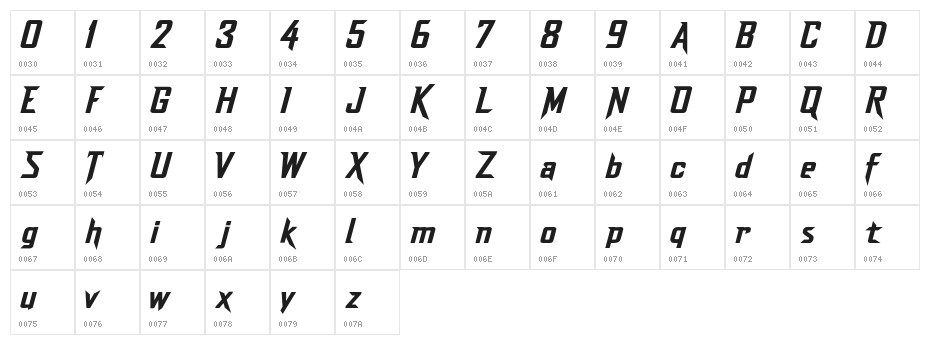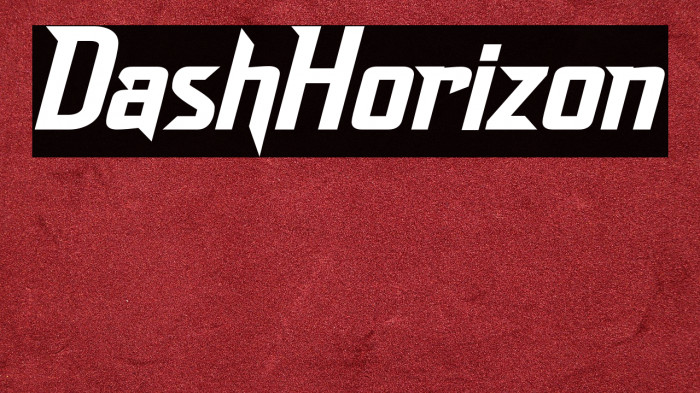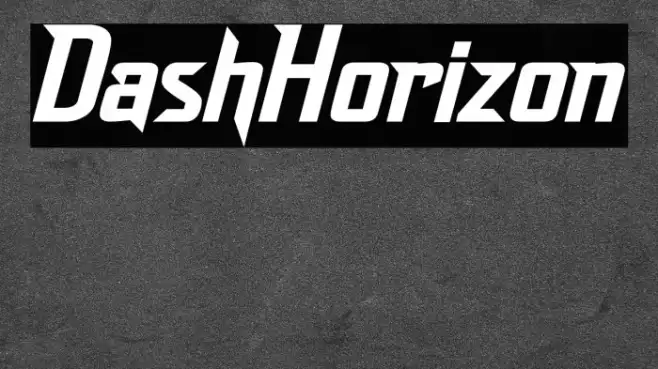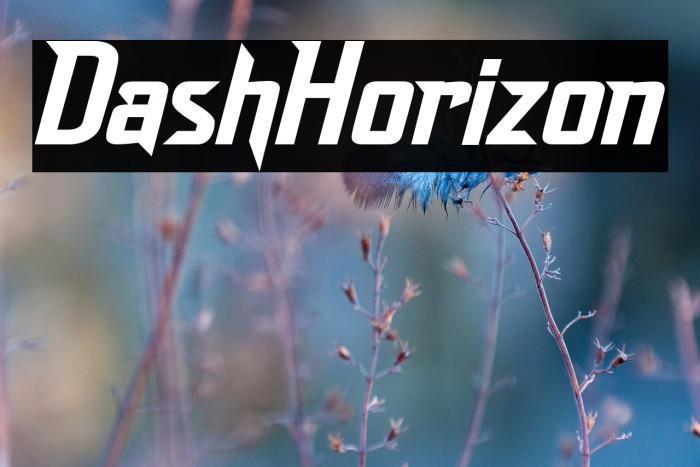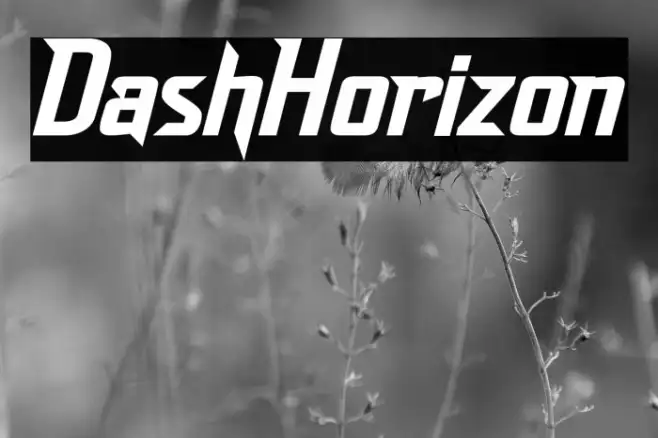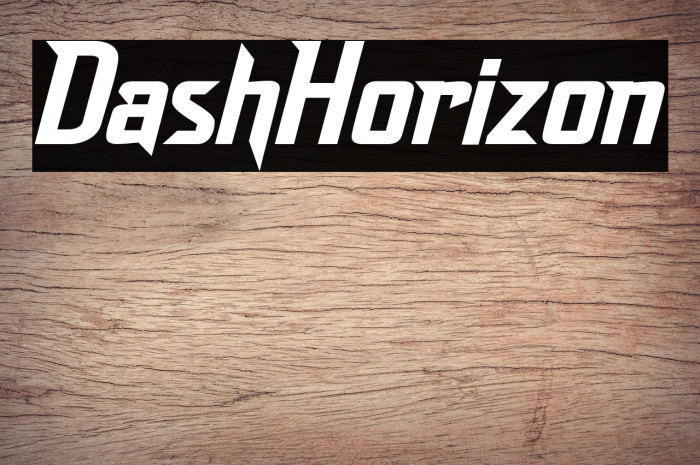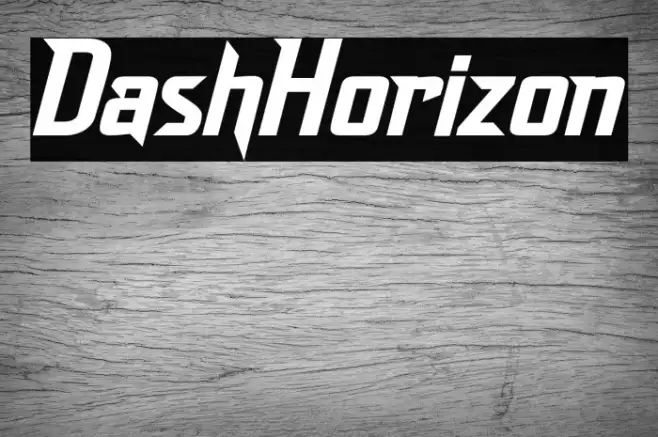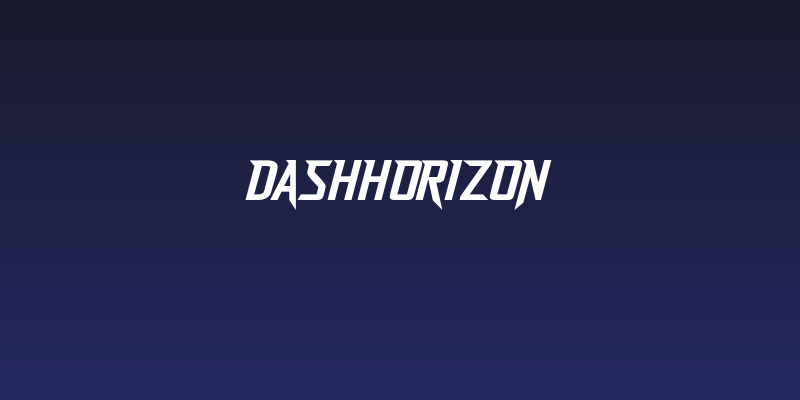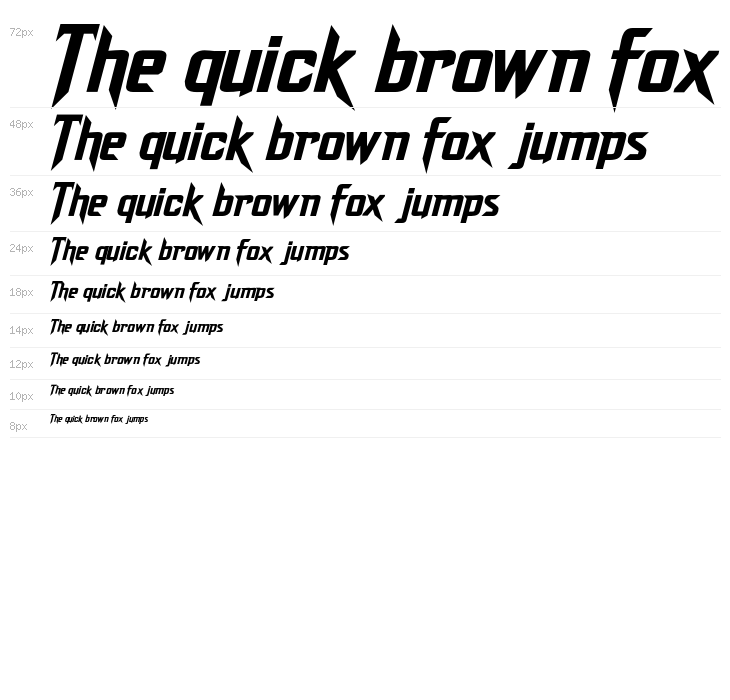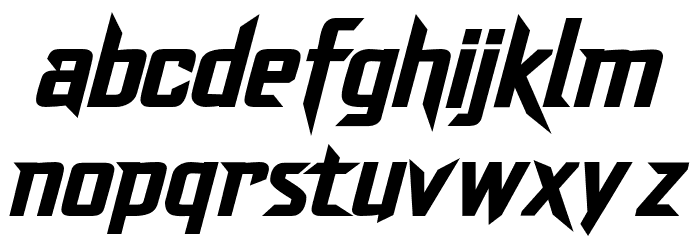
DashHorizon Font
DashHorizon Description
This dynamic and bold font features sharp, angular edges and a forward-leaning stance, giving it a sense of motion and energy. The uppercase letters are particularly striking, with their aggressive slant and pointed terminals, while the lowercase letters maintain a consistent style that complements the uppercase. The numerals are equally bold and maintain the same angular design, ensuring uniformity across all characters. This font's unique style makes it stand out, ideal for projects that require a modern and edgy look. The character spacing is tight, enhancing the compact and impactful appearance of the text. The high contrast in stroke thickness adds to the font's dramatic and attention-grabbing nature.